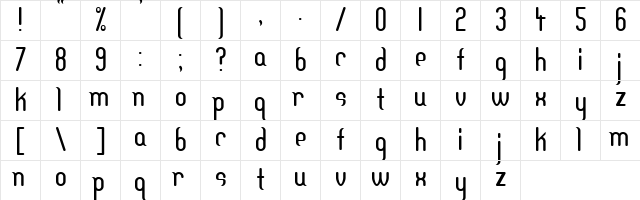
DF Temple Heavy
Design Context for DF Temple Typeface
DF Temple offers clean, dependable letterforms without strong stylistic allegiance, making it a practical choice for designers who need flexibility.
Pro Tip: Pair DF Temple with a font of contrasting weight or personality to build a more expressive typographic hierarchy.